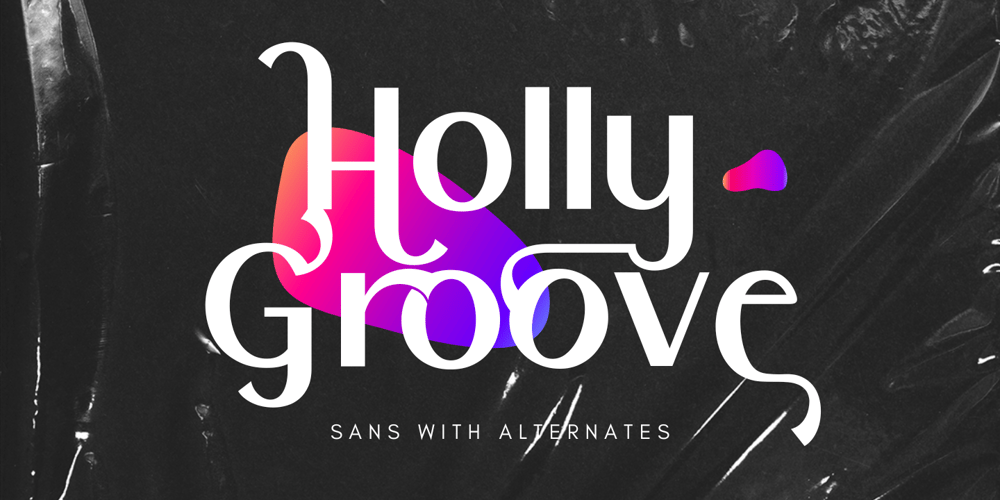
Holly Groove Three Font Family was designed by Dian Haniffan Hadi and published by Beary. Holly Groove Three contains 1 styles and family package options. Holly Groove Three is a sans serif font with beautifull swashes, masterfully designed to become a true favorite. It maintains its classy calligraphic influences while feeling modern and fresh.